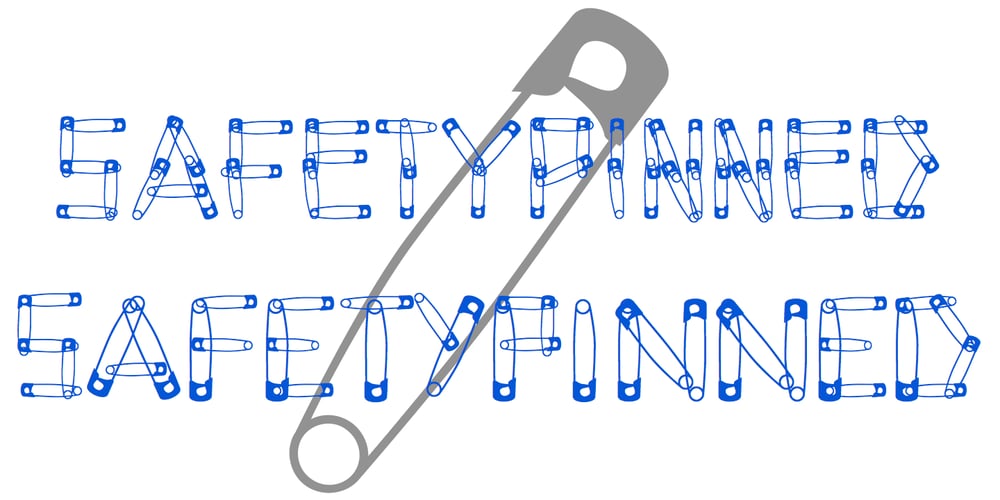
SafetyPinned Font Family was designed by Robert Schenk and published by Ingrimayne Type. SafetyPinned contains 1 styles and family package options. The characters in SafetyPinned are composed of interlocked safety pins. The typeface lacks true lower-case letters but rather has two sets of capital letters.